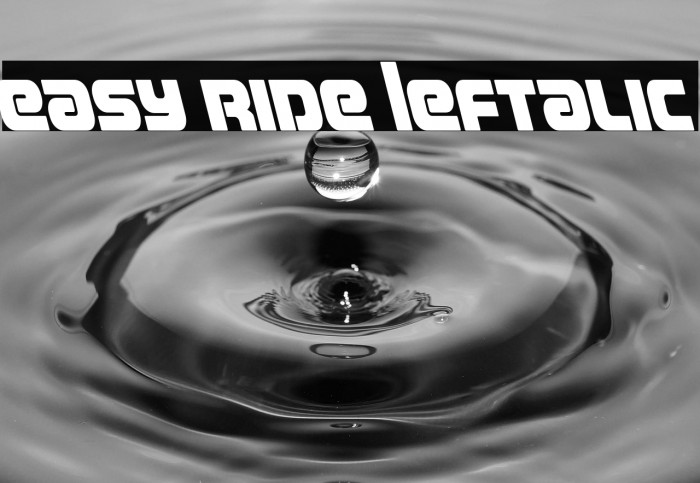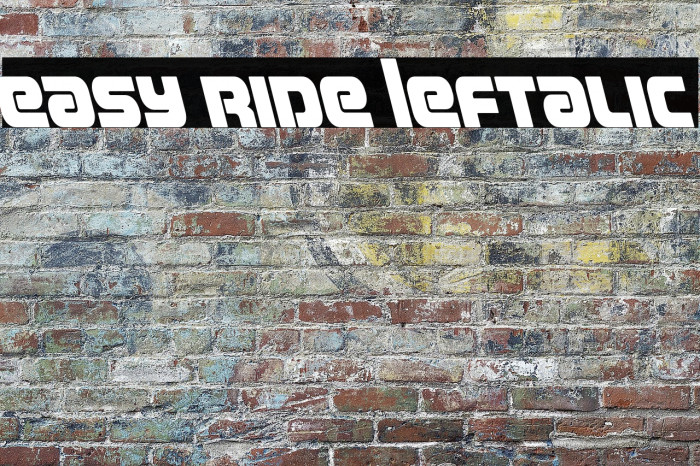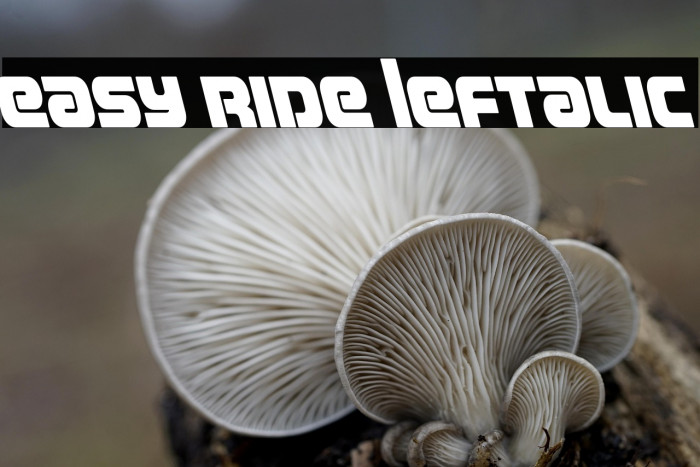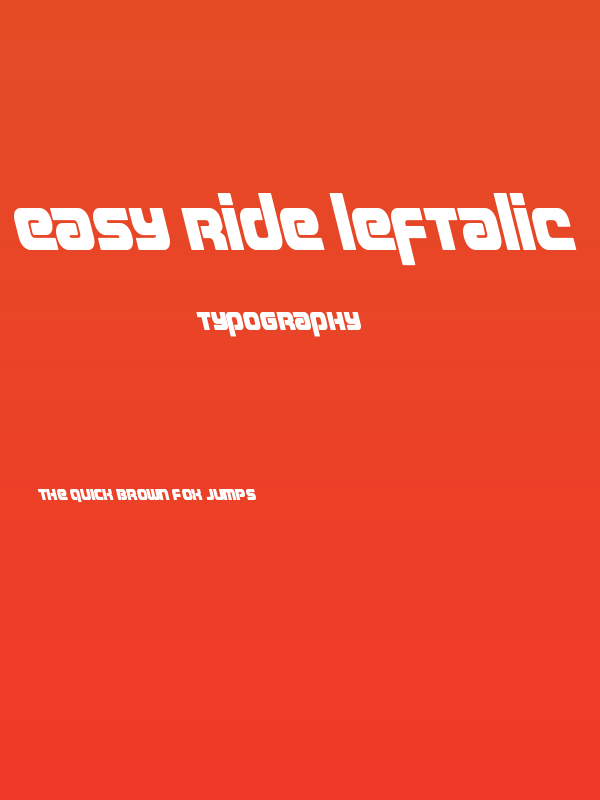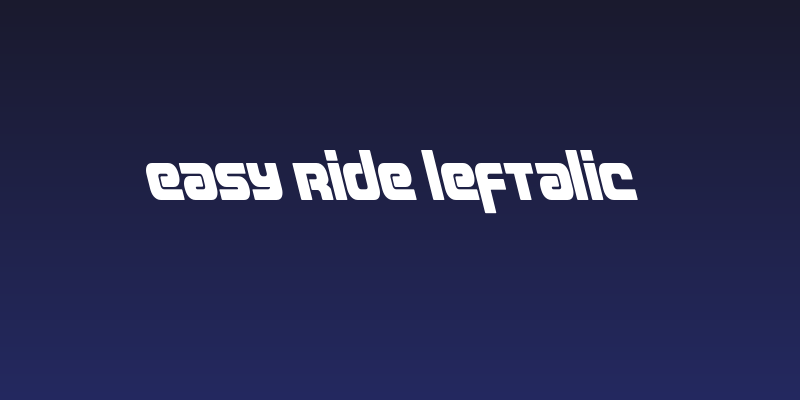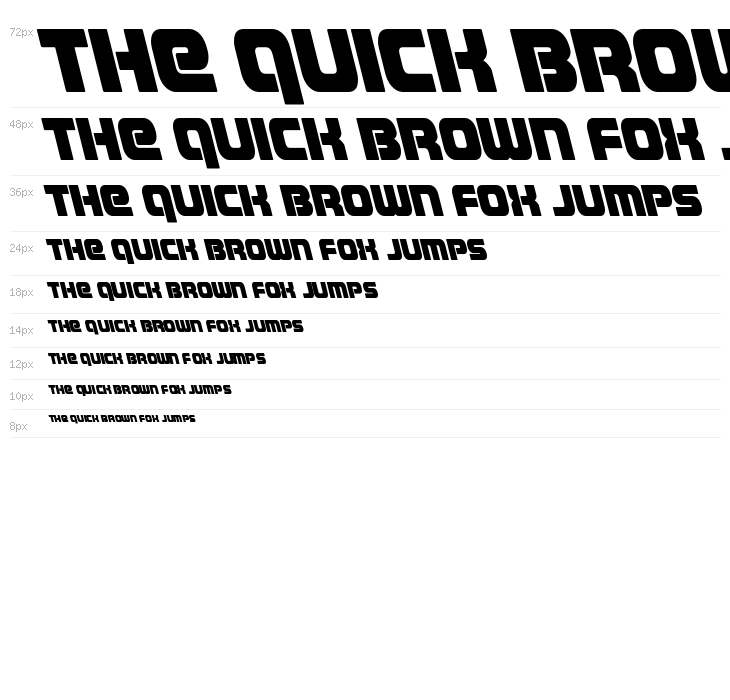
Easy Ride Leftalic Font
Easy Ride Leftalic Description
This font features a bold and dynamic style with a distinctly modern and futuristic appearance. The characters are designed with a strong geometric influence, showcasing thick, block-like forms that convey a sense of strength and stability. The letters are slightly slanted, adding a sense of motion and energy. The uniform stroke width across all characters contributes to a cohesive and harmonious look. The font includes both uppercase and lowercase letters, numerals, and a variety of special characters, making it versatile for various design needs. Its unique style makes it stand out, suitable for projects that require a bold and impactful visual statement.
| Proposed Projects | Ideal for branding, posters, headlines, and any design needing a strong, modern aesthetic. |